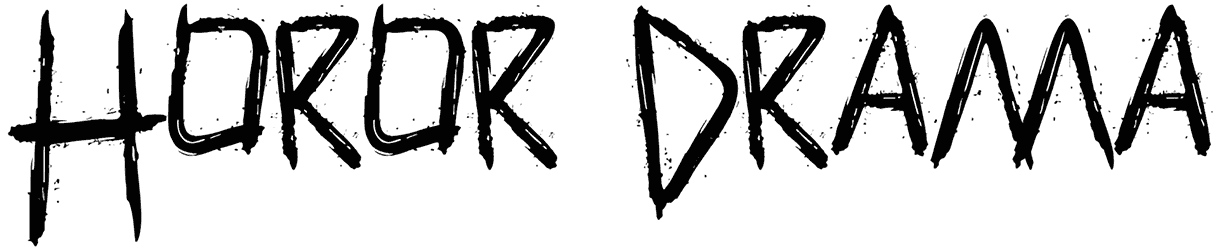
Horor Drama Font
Would you like to illustrate your design with a sinister and eerie mood? This item can lend a hand to scare your viewers with such a look. The lack of support for lowercase, numbers, or punctuation doesn’t mean Horor Drama will let you down. As a horror font with hand-scratched letters, it can create a crazy title or wordmark in your creative layout.